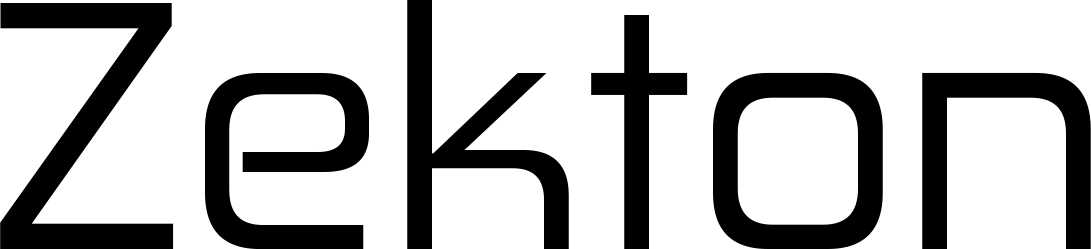
Zekton Font
Thin lines and round edges are the main noticeable design elements of this sci-fi font that give it a futuristic feel. Zekton is an impressive font that can handle any project that you throw at it from advertisements to games.
Prepare for typographic liftoff with Zekton, the font that’s boldly going where no letterform has gone before. This isn’t just a typeface—it’s a portal to a chrome-plated future where information flows like liquid crystal and ideas spark like neon against the night sky.
Zekton’s square-edged characters aren’t merely letters; they’re microchips in a vast circuit board of communication. Each glyph pulses with the raw energy of a thousand CRT monitors, its uniform line widths humming with the precision of a laser-cut future. This is the typeface you’d find etched onto the control panel of an interstellar cruiser, or scrolling across the visor of a cybernetic street samurai. But Zekton isn’t just about looks—it’s about versatility in the face of an ever-shifting digital landscape. With seven weights, two widths, and a full complement of italics, Zekton offers 42 variations on technological perfection. It’s like having a shape-shifting android at your typographic command, ready to adapt to any design challenge the future throws your way.
From the neon-drenched back alleys of Neo-Tokyo to the sleek corporate monoliths of Silicon Valley, Zekton speaks the lingua franca of the digital age. Its extensive language support, including Cyrillic, ensures your message resonates across the global datascape. Whether you’re coding the next reality-altering app or designing the interface for humanity’s first Mars colony, Zekton has the syntactic subroutines to get the job done.
Choose Zekton, and watch as your designs transform into beacons of innovation, calling out across the technosphere. It’s more than a font—it’s a declaration that the future isn’t just coming, it’s already here, rendered in pixels and light.